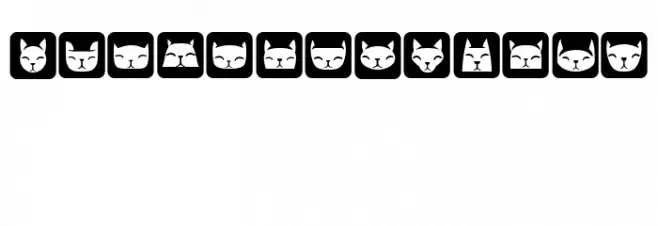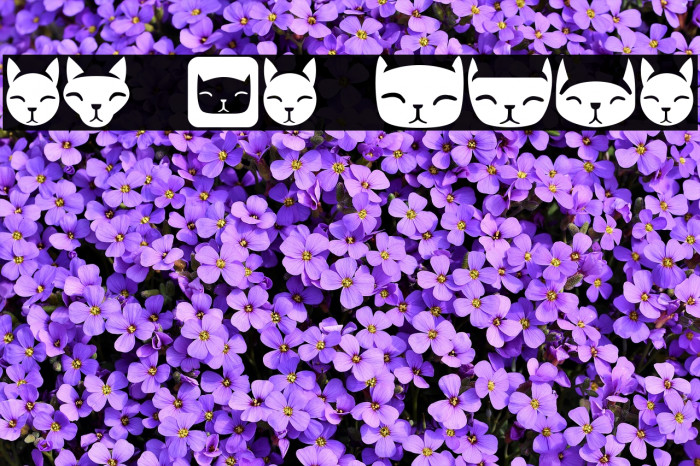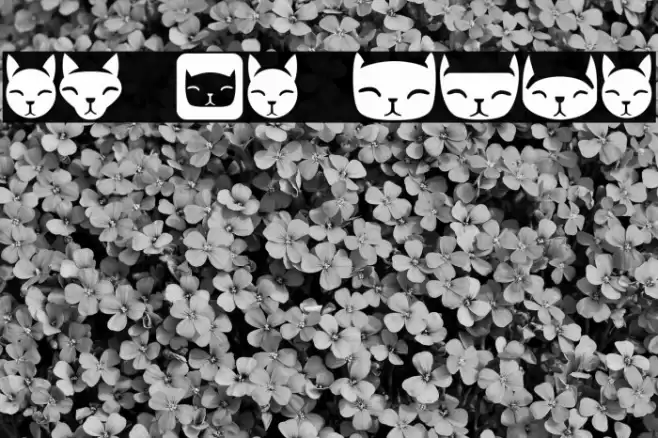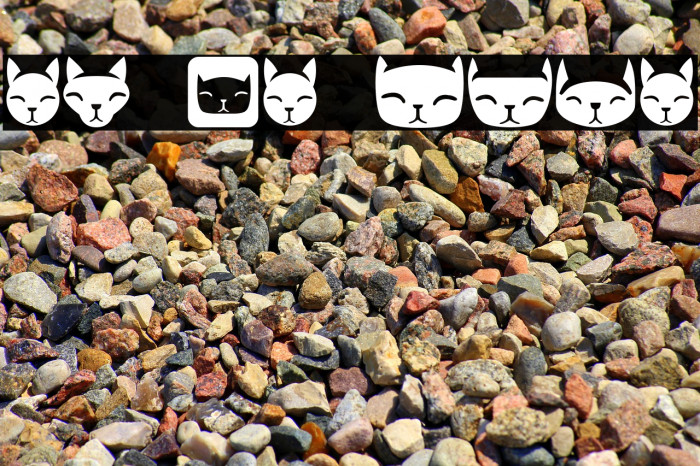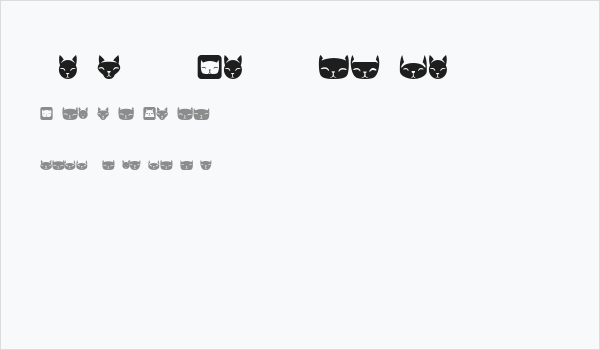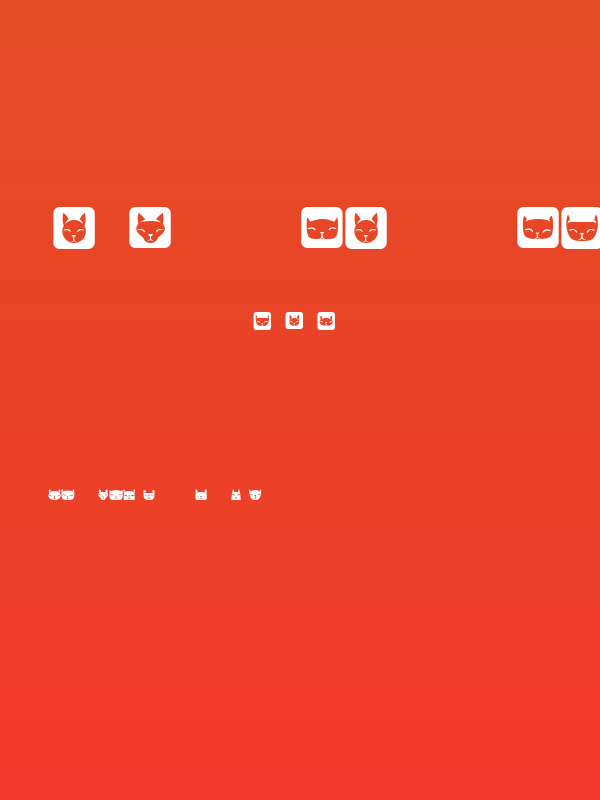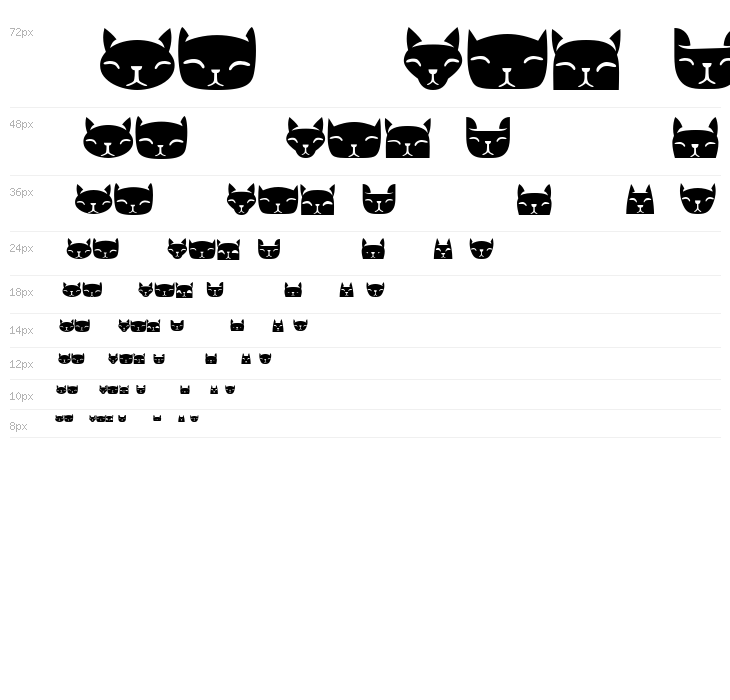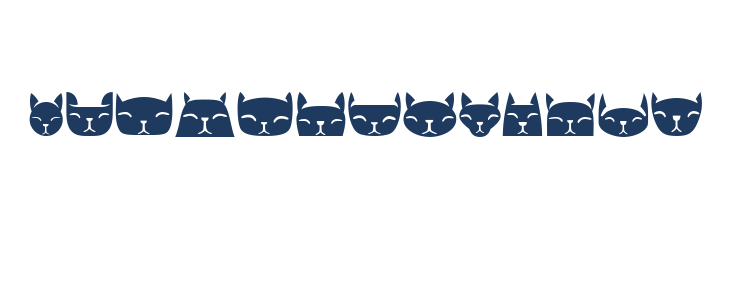
Various Cats Regular Font
Various Cats Regular Description
This playful and whimsical font features a series of cat faces, each uniquely designed to represent different expressions and styles. The characters are enclosed in square shapes, providing a uniform and structured appearance. The font is decorative and ideal for projects that require a fun and lighthearted touch. Each cat face is distinct, with variations in ear shapes, eye expressions, and mouth designs, making it visually engaging and versatile for creative uses.
| Use Case | Logos, Posters, Invitations |
| Proposed Projects | Ideal for children's books, pet-related branding, playful posters, and creative invitations. |